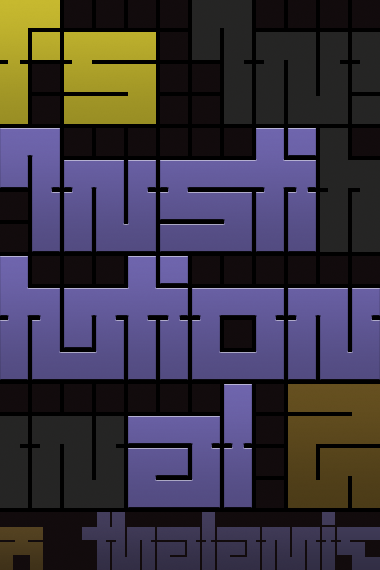
fs Institutional 2
by thalamic
Now with squared-off corners.
This square version looks great. 10/10
When i discovered FS almost 3 years ago, before i made any tryout myself, i checked all the then 10000 fonts, and loved immediately this series (as much of your work). Beautiful addition